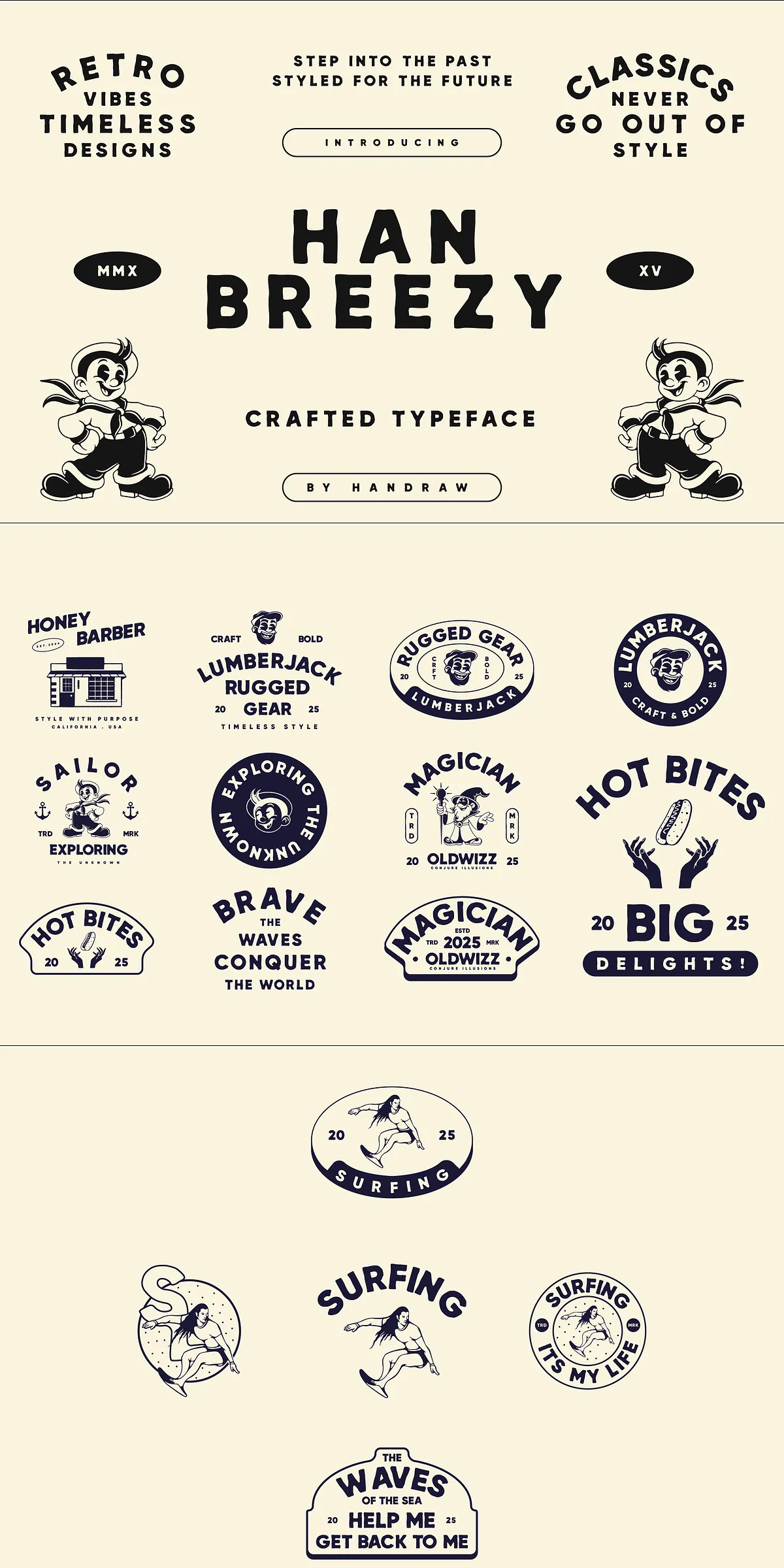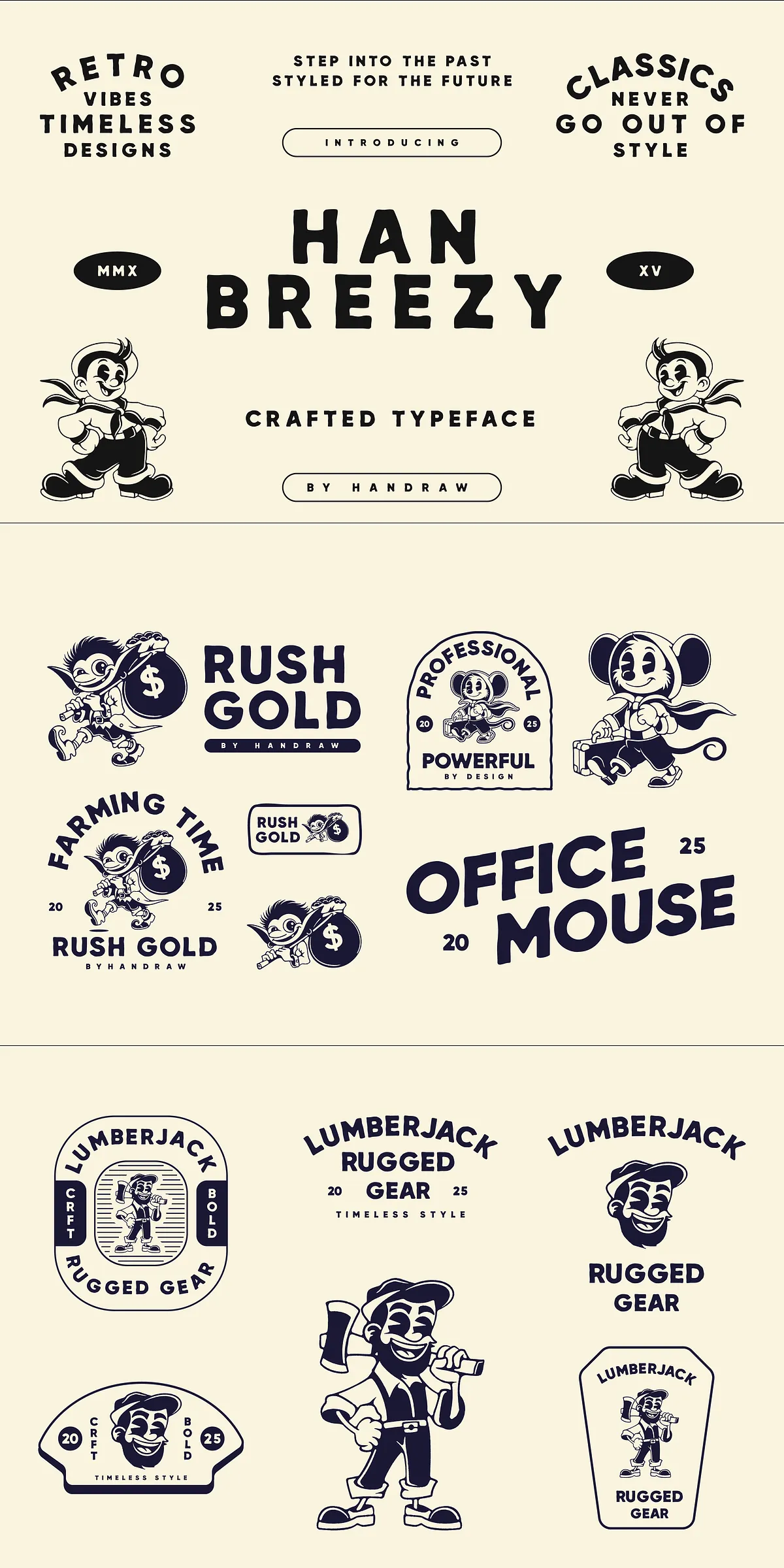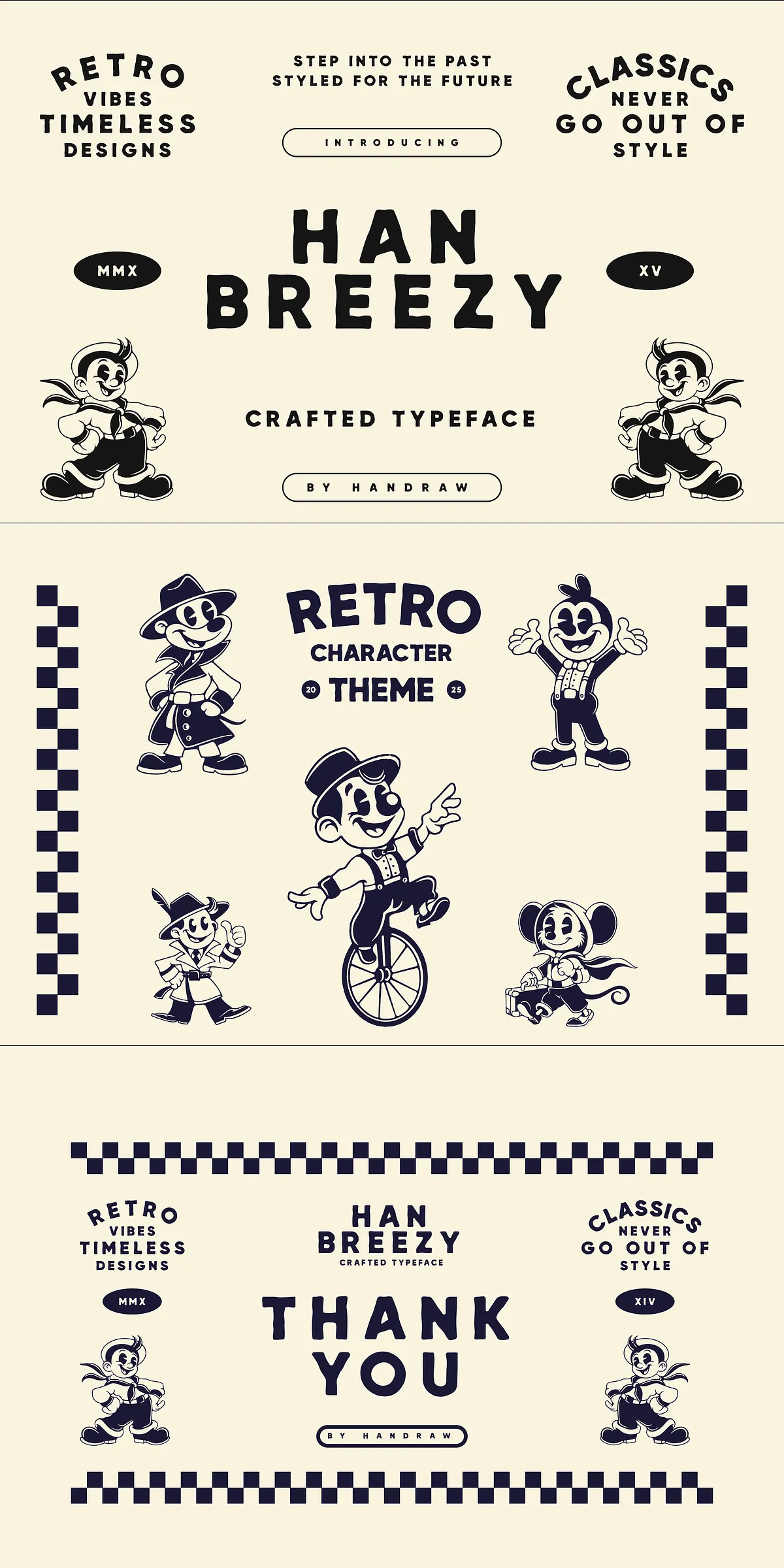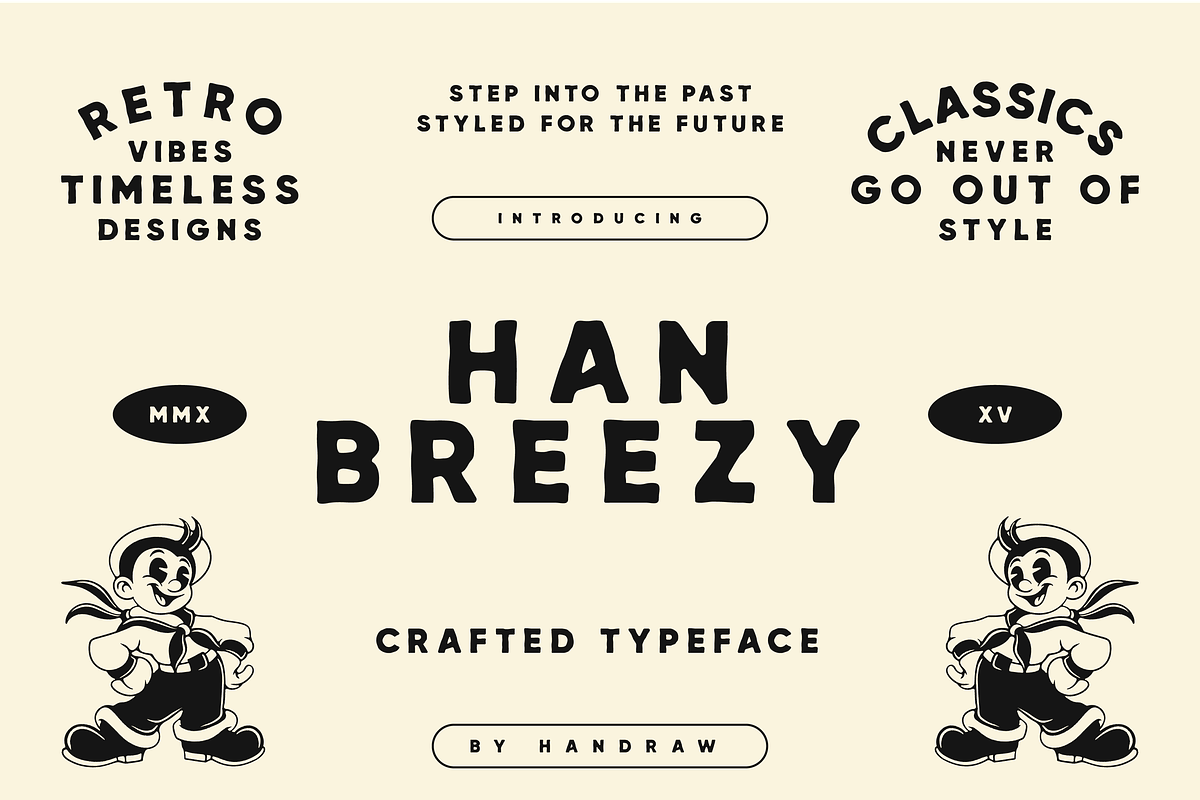
Step into a world where every letter feels alive, where ink flows like memory, and where design carries the heart of the past. Han Breezy isn’t just a font—it’s an invitation to create with warmth, authenticity, and timeless charm. Crafted for designers who value personality over perfection, this typeface blends retro nostalgia with modern practicality, delivering a hand-drawn aesthetic that feels both familiar and refreshingly unique.
Evoking the Past, Designed for the Present
Every character in Han Breezy is meticulously drawn to capture the organic imperfections and flowing energy of vintage hand-lettering. Think of it as a conversation between old-school craftsmanship and today’s digital precision. The subtle inconsistencies in line width, the gentle sways in ascenders and descenders, and the delicate flourishes—all of it contributes to a typeface that feels personal, human, and undeniably expressive.
Whether you’re designing a vintage-inspired packaging label, a coffee shop logo, or a mood board for a retro-themed event, Han Breezy brings a sense of authenticity that mass-produced fonts simply can’t replicate. It’s the perfect choice when you want your work to feel not just seen, but *felt*.
Where Han Breezy Shines: Creative Applications
Han Breezy is more than a pretty face—it’s a powerhouse of expressive potential. Here’s where it truly transforms your projects:
- Branding & Logos: Create memorable identities for boutique brands, craft breweries, artisanal food lines, or lifestyle startups. Han Breezy adds character and story to your logo.
- Packaging Design: Elevate product boxes, labels, and tags with a nostalgic yet modern look. Great for cosmetics, teas, candles, and specialty food items.
- Editorial & Book Design: Use it for chapter headings, pull quotes, or author bios in magazines, zines, or cookbooks to add a personal, handcrafted feel.
- Event & Wedding Invitations: Perfect for rustic-chic, vintage, or bohemian-themed events. It brings warmth and elegance to your special moments.
- Web & UI Design: Use Han Breezy in hero sections, buttons, or taglines to create a distinctive online presence. Its unique personality stands out in a sea of generic fonts.
- Social Media Content: Turn quotes, tips, or announcements into visually compelling posts that stop the scroll.
More Than a Font—A Design Philosophy
Choosing Han Breezy means embracing design with feeling. It’s for creators who believe that typography should do more than convey words—it should evoke emotion, inspire mood, and connect with the viewer on a deeper level. It encourages imperfection, celebrates individuality, and rewards thoughtful design.